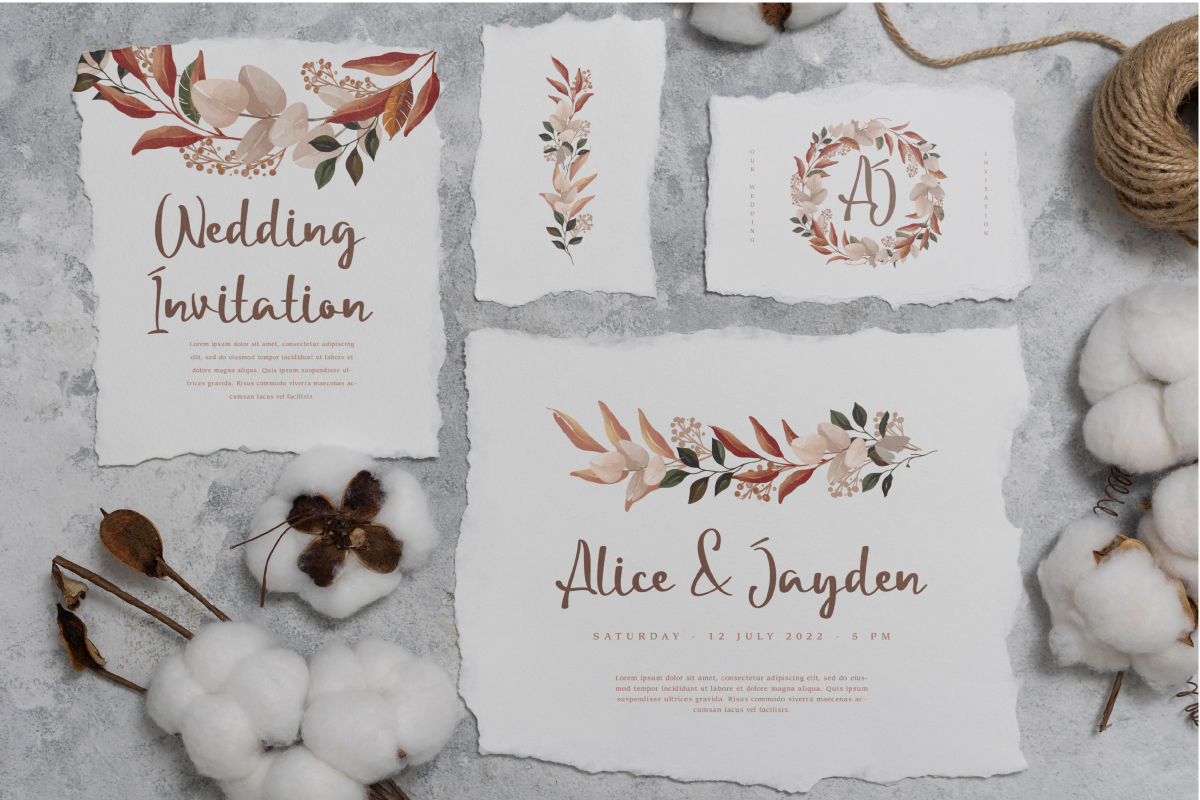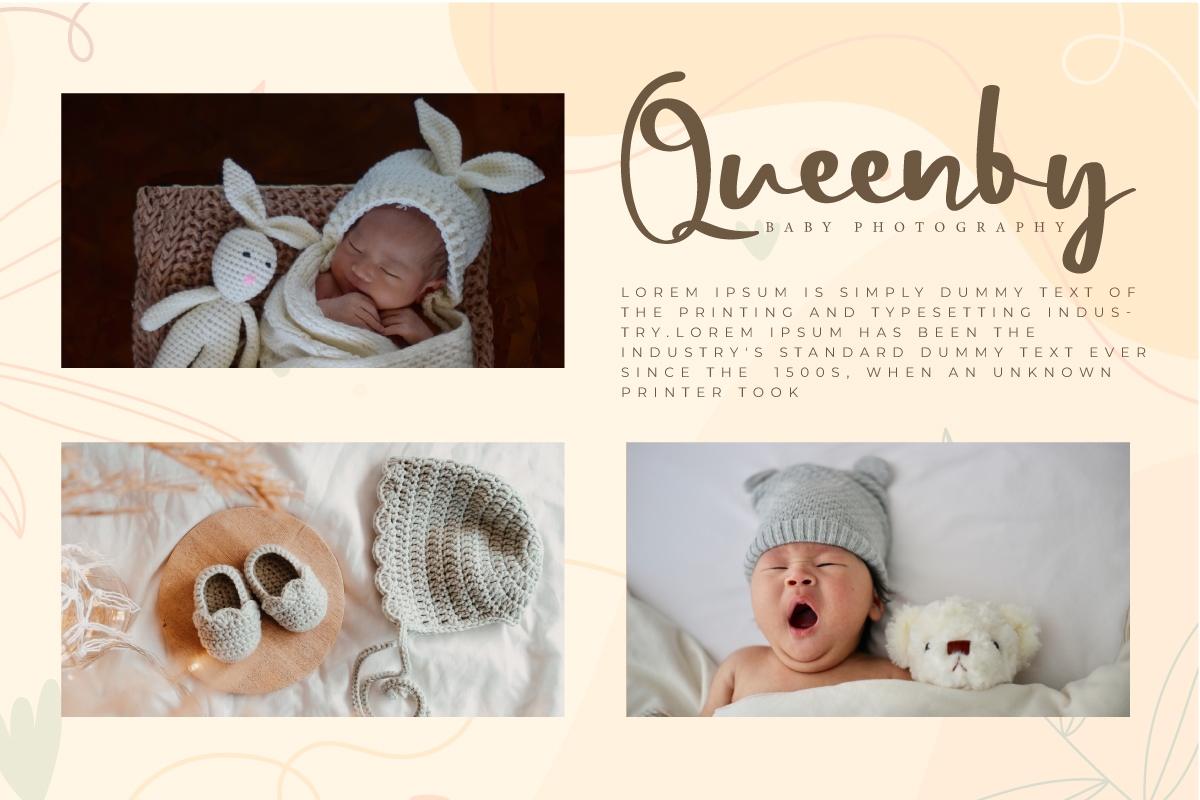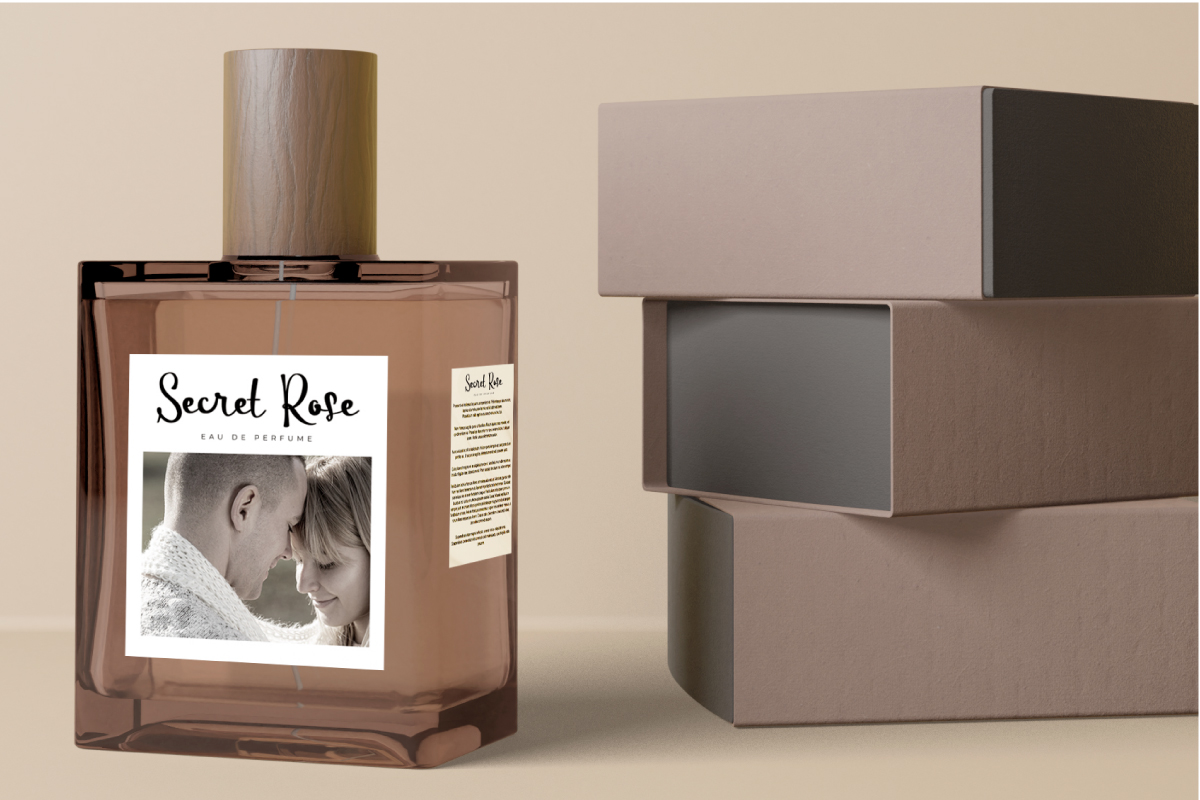
Smooth Perfectly Font
Smooth Perfectly Script Font
This is a beautiful script font with handwriting style. The lines in this font flow smoothly and beautifully, giving it an eye-catching look. Use this font to enhance your projects, such as business card, flyer, label, invitation, packaging design, quotes, stationery, title, website, etc.